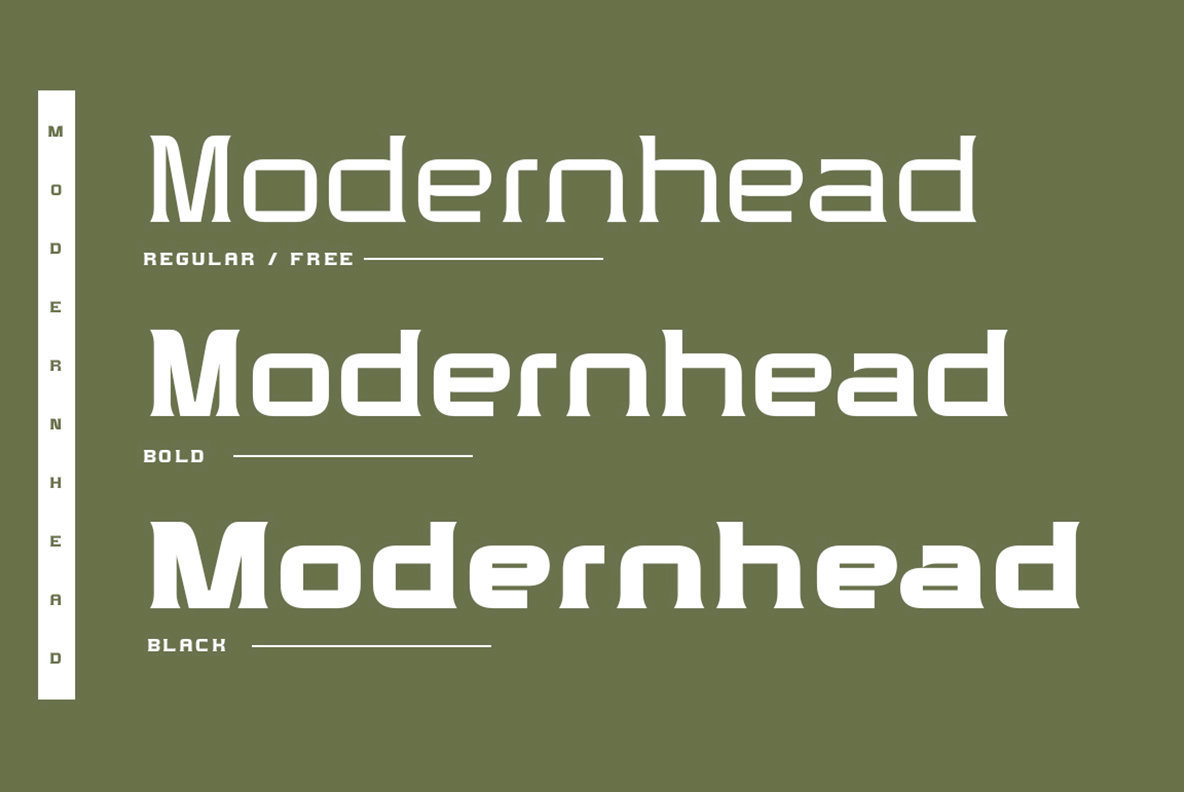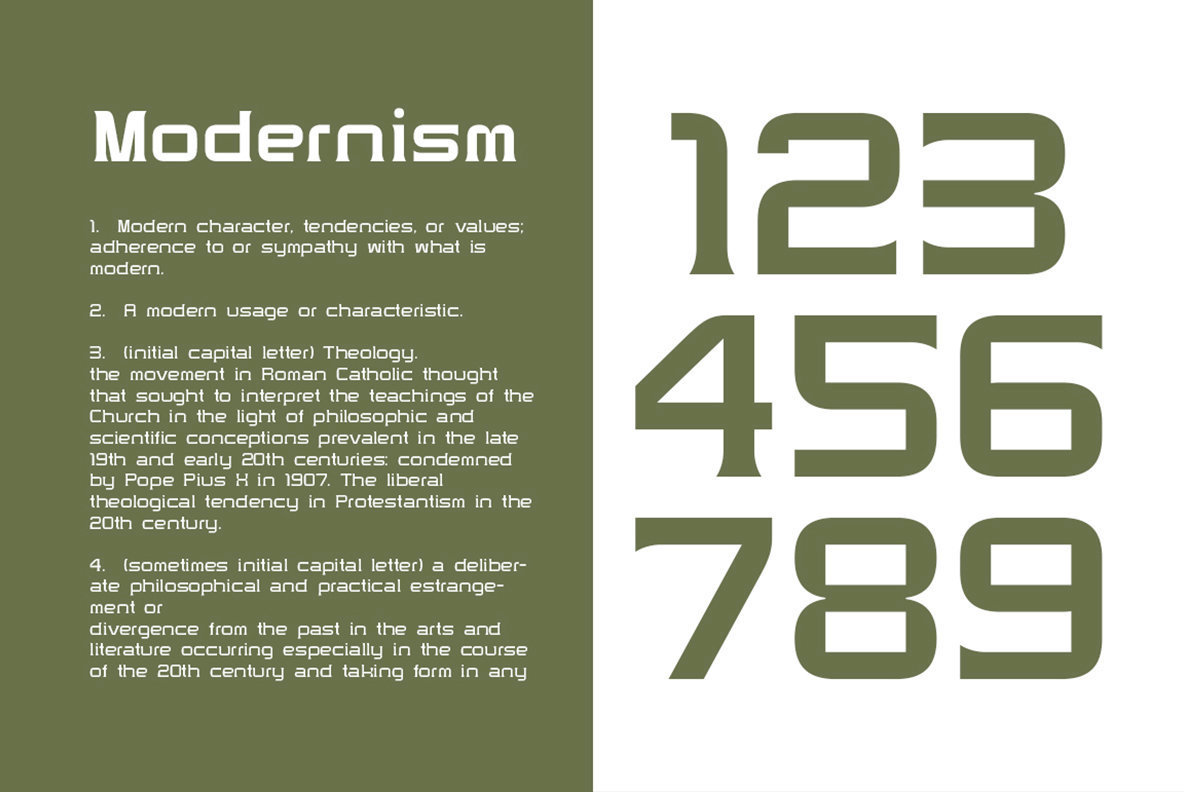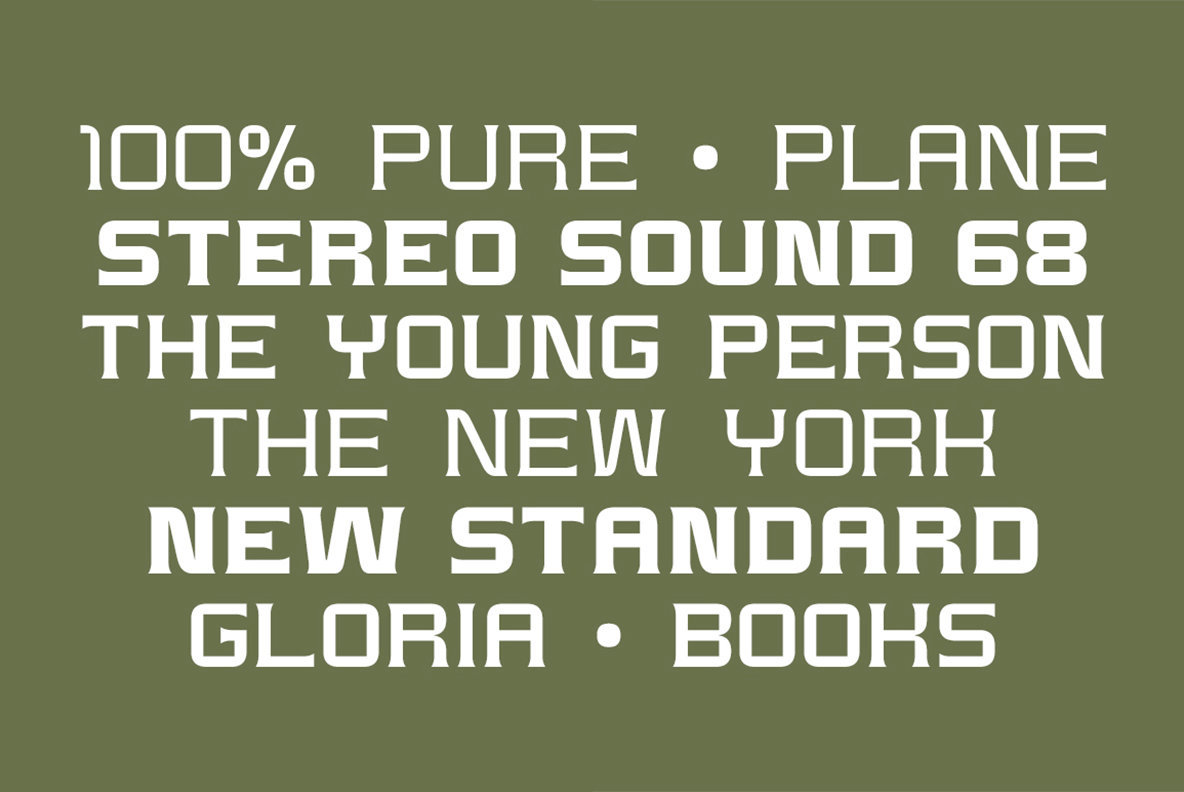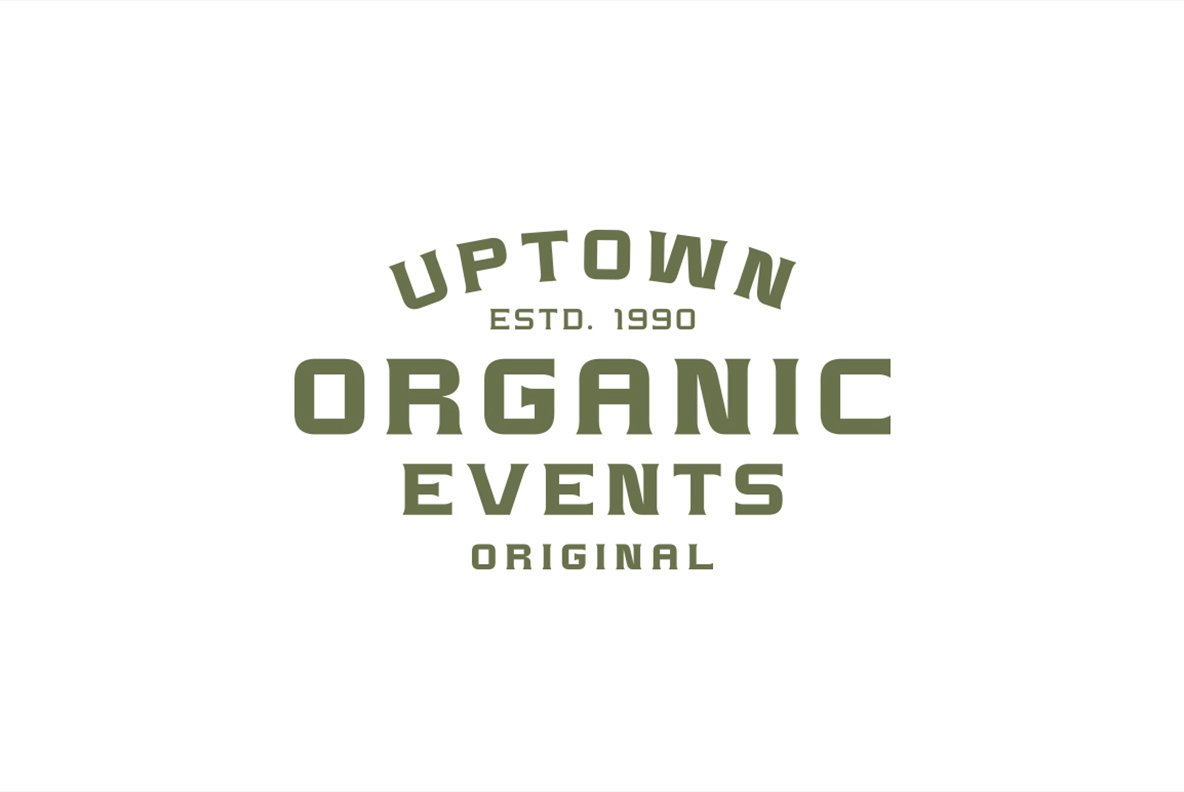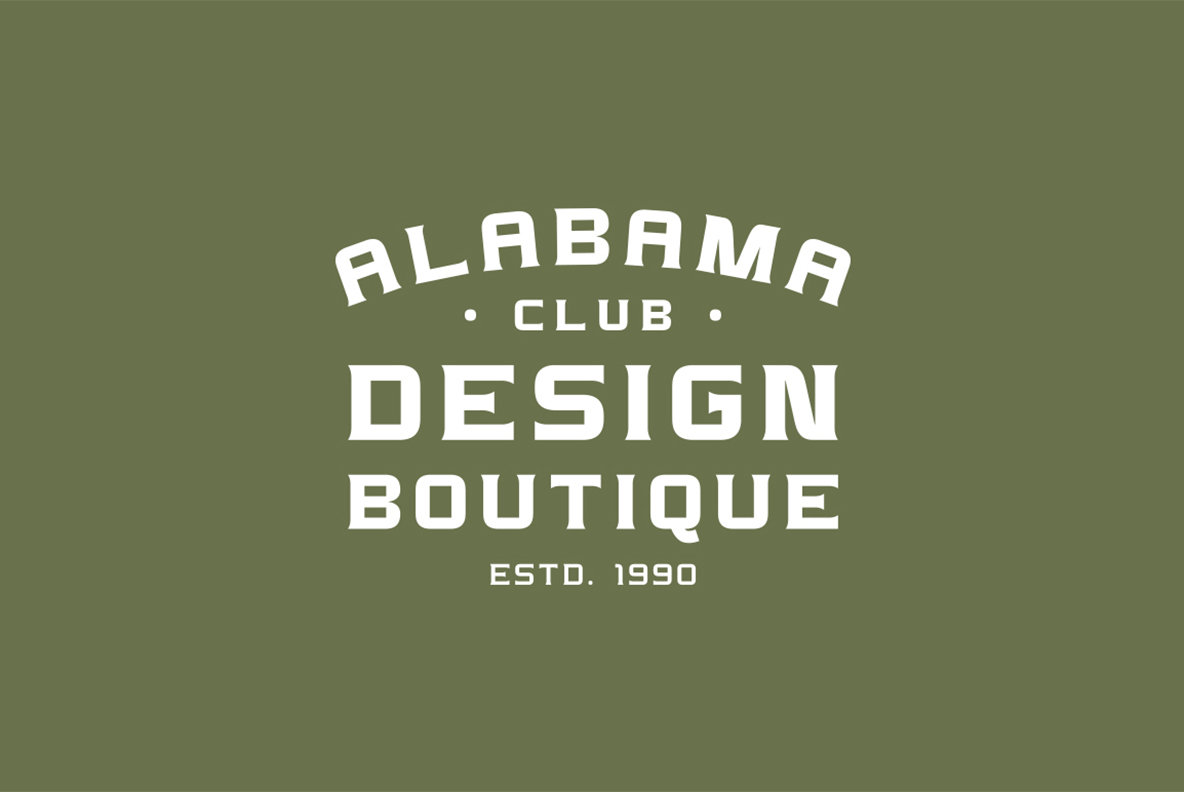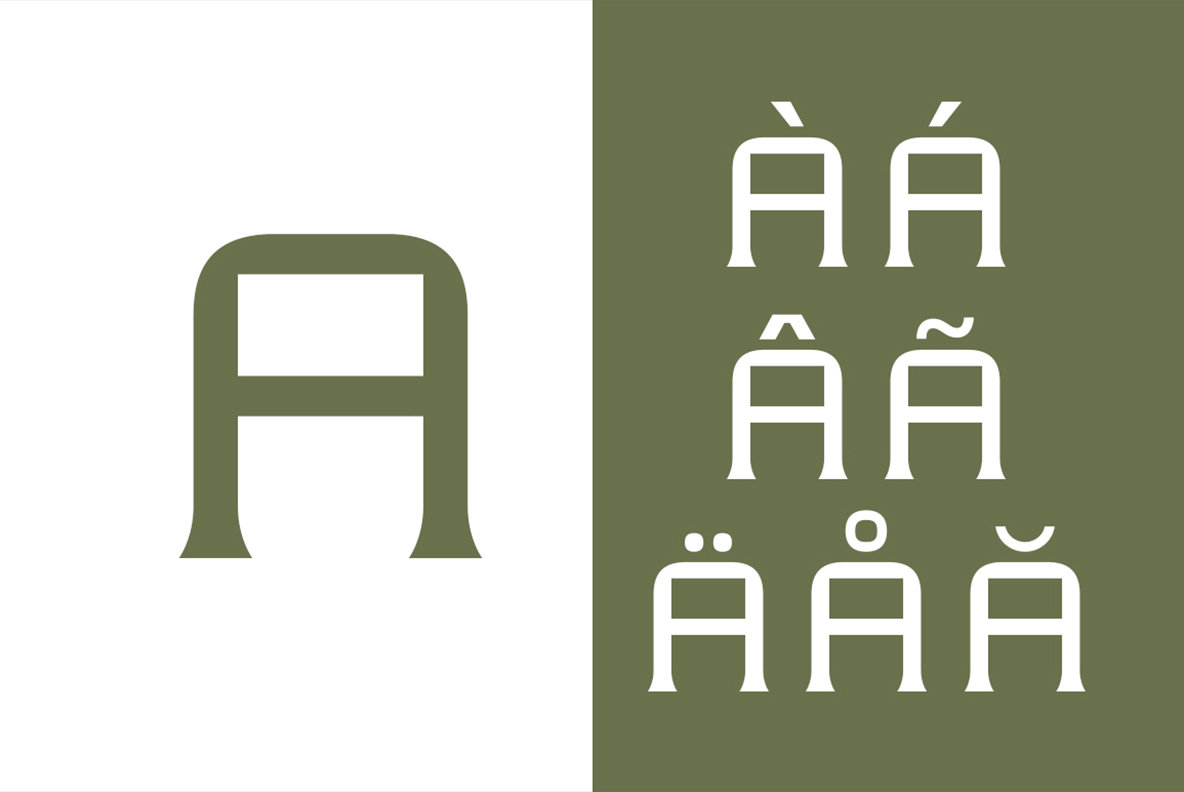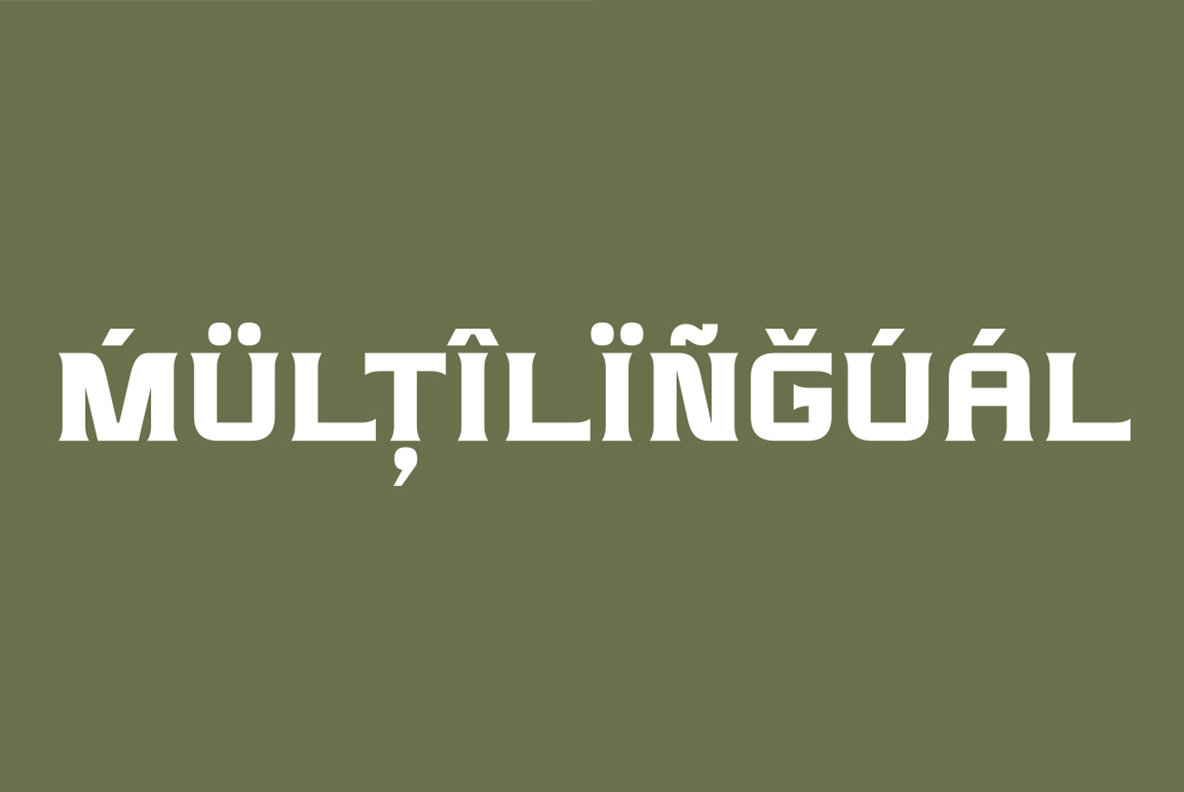
Modernhead Serif Font
Modernhead Serif embodies simplicity and modernity, making it an excellent choice for graphic designers seeking clarity and elegance in their projects. Featuring 252 glyphs and multi-language support, this typeface proves versatile, particularly in modern logo design, headers, and succinct text.Modernhead Serif: A Contemporary Typeface
Typographic Features
Elevate your design with Modernhead Serif, a font that seamlessly balances tradition with contemporary needs.